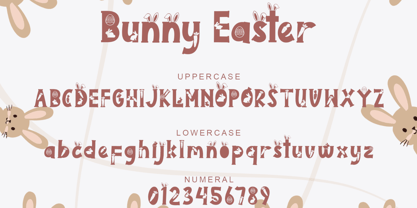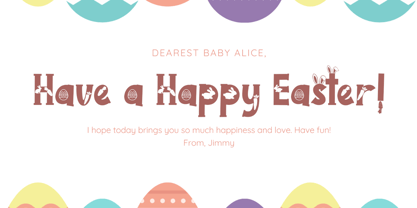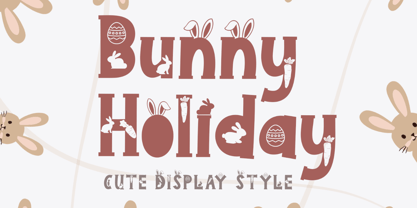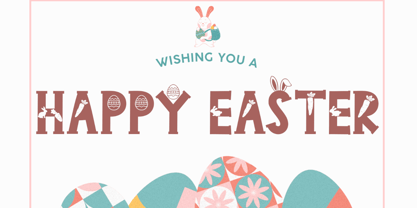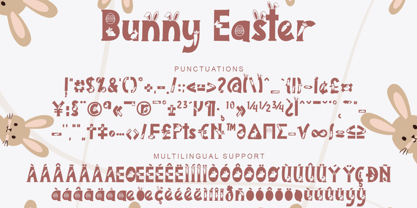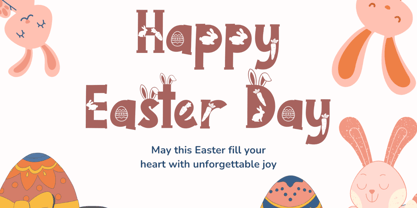
Bunny Holiday
by Yoga Letter
The Bunny Holiday Font Family was designed by Isroni Yoga Prasetya and published by Yoga Letter. Bunny Holiday contains 1 styles. More about this family
"Bunny Holiday" is a unique and cute display font. This font is equipped with uppercase, lowercase, numeral, punctuations and multilingual support. It is very suitable for use for easter, valentine, comics, cartoons, banners, posters, prints, branding, stickers, logos, invitations and others.
Designers: Isroni Yoga Prasetya
Foundry: Yoga Letter